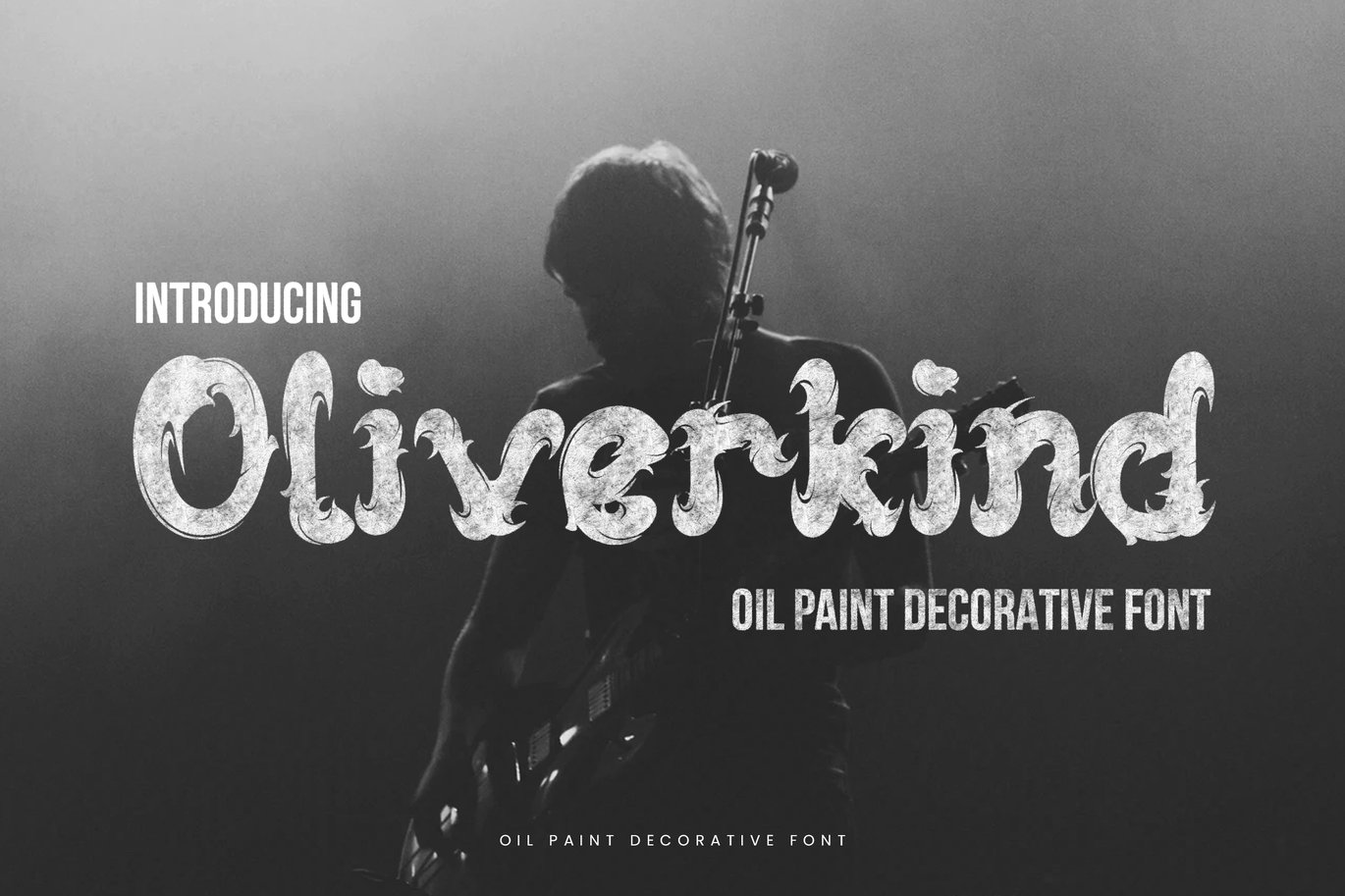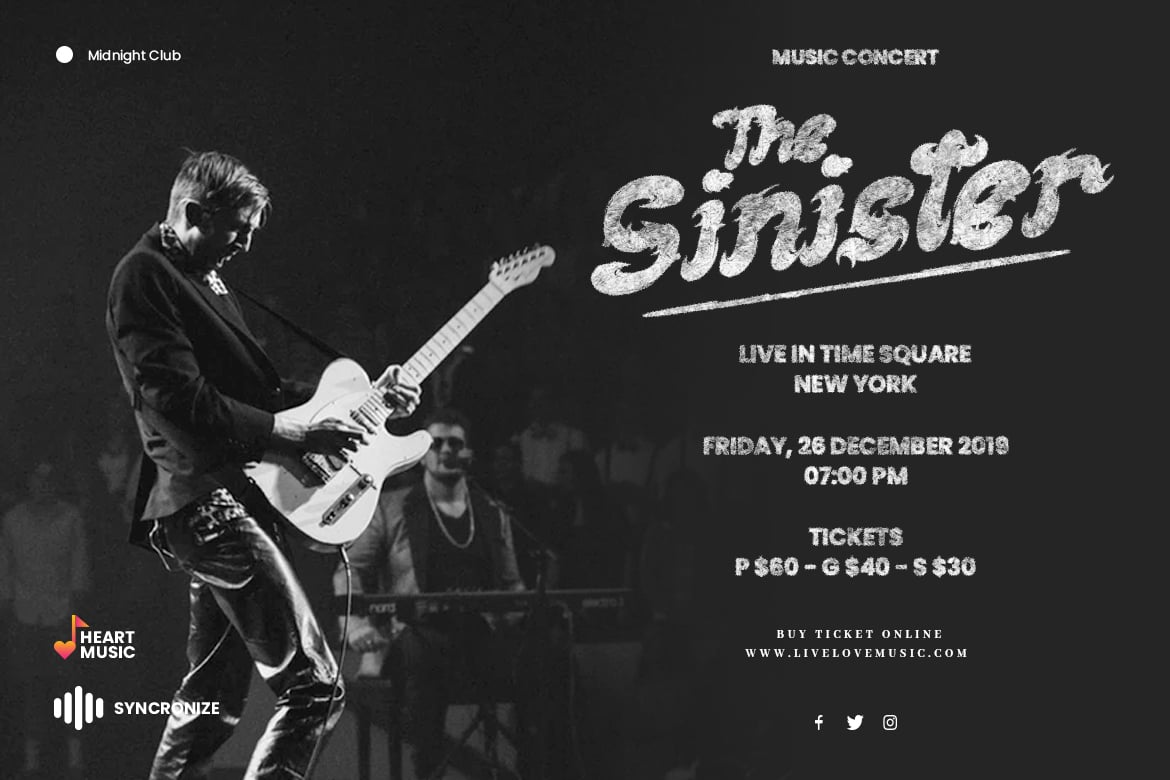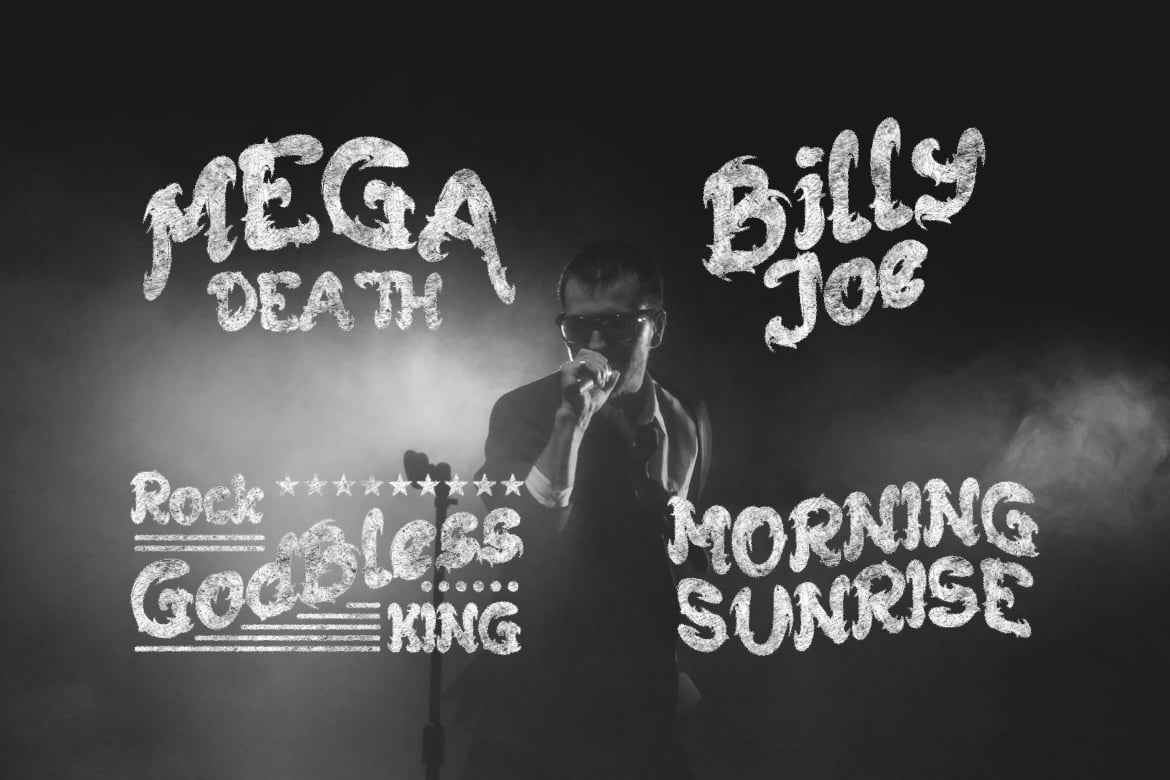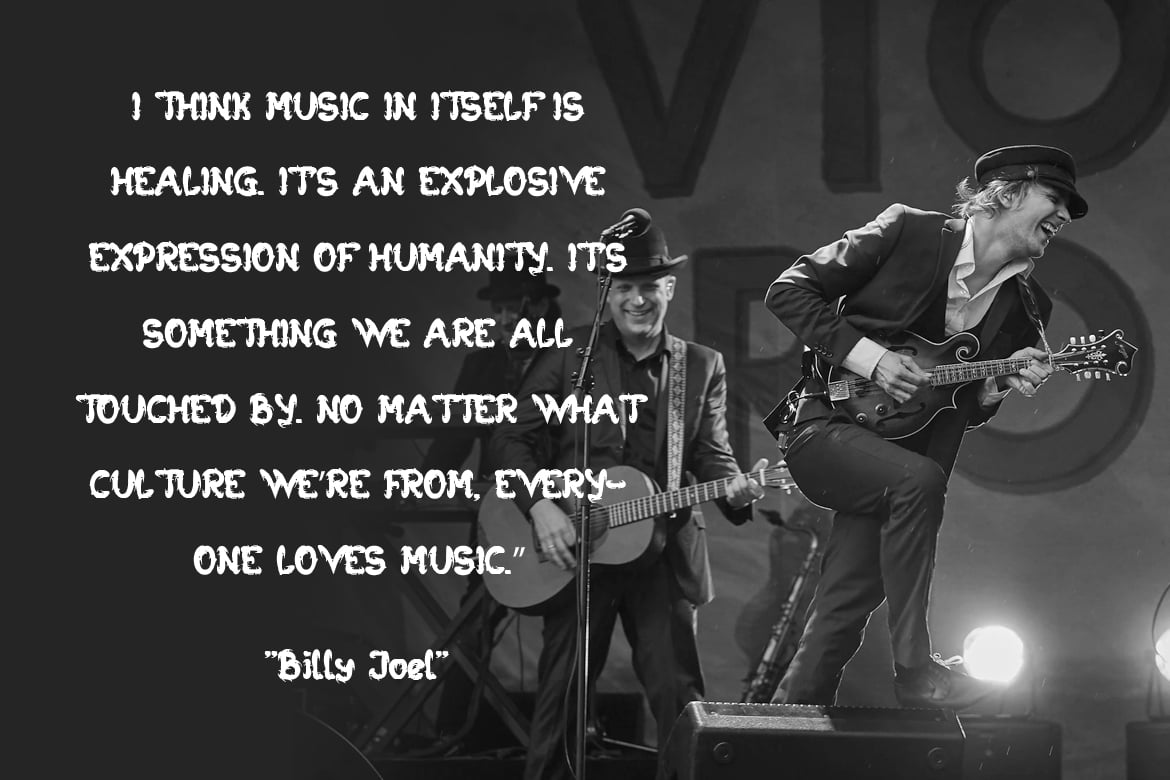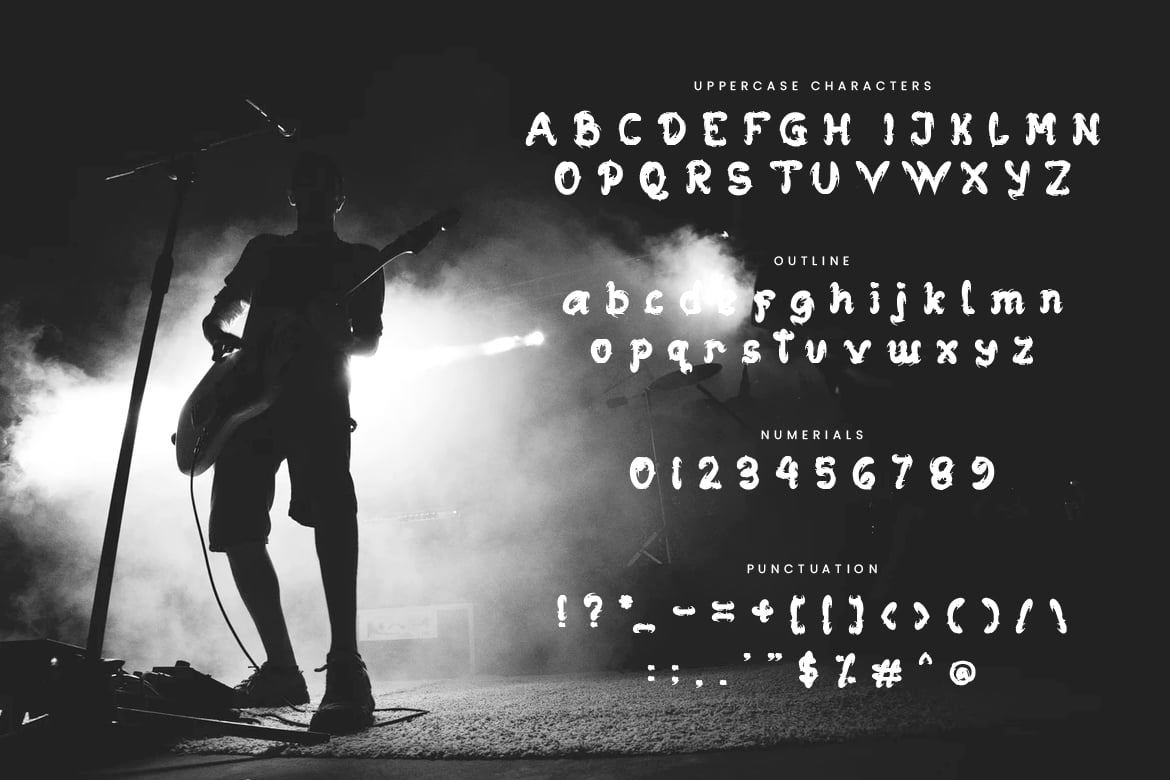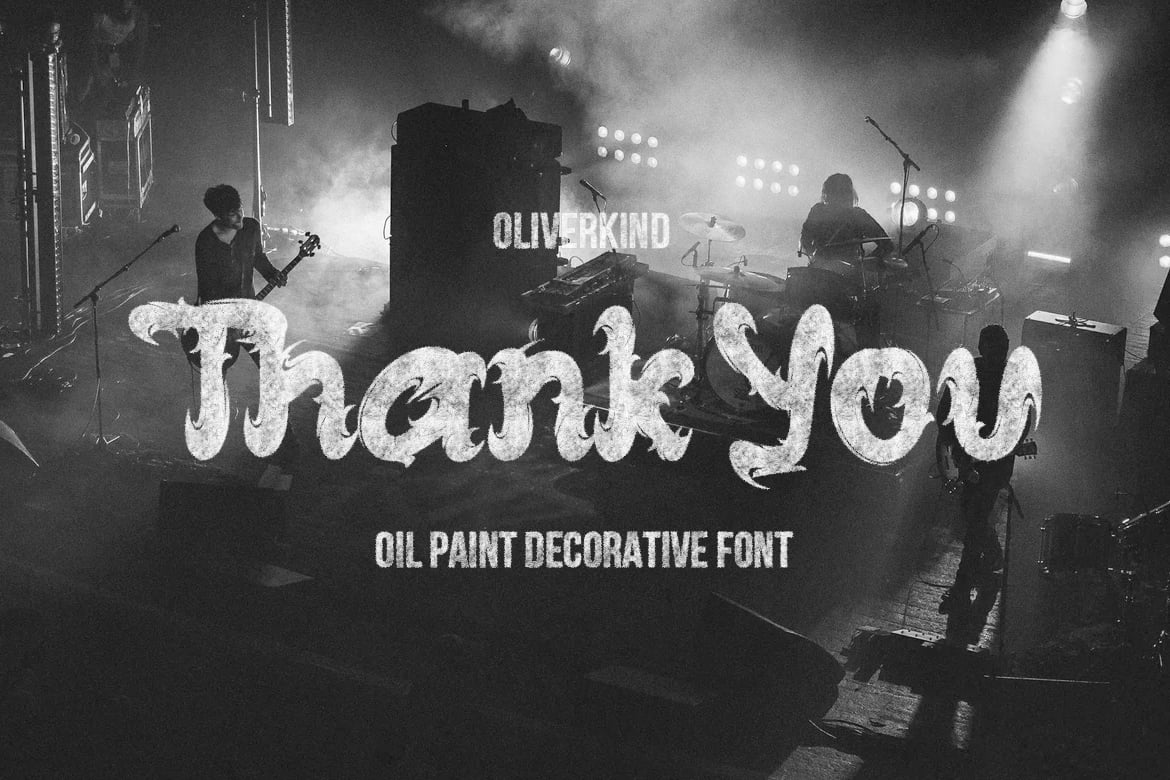
Oliverkind – Oil Paint Decorative Font
Introducing Oliverkind font. Are you looking for a bold and solid display brush font that has an oil paint decorative feeling? We can help! Try to download our Oliverkind font. The font is suitable to use for many occasion such as music, logo, book cover, movie title, book title, event, and many more π